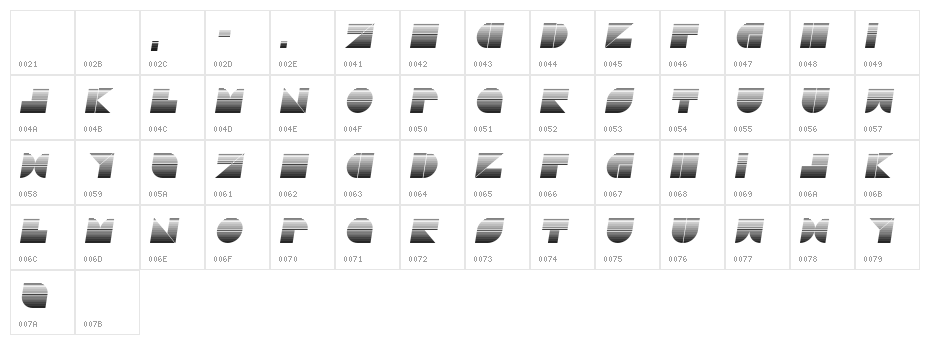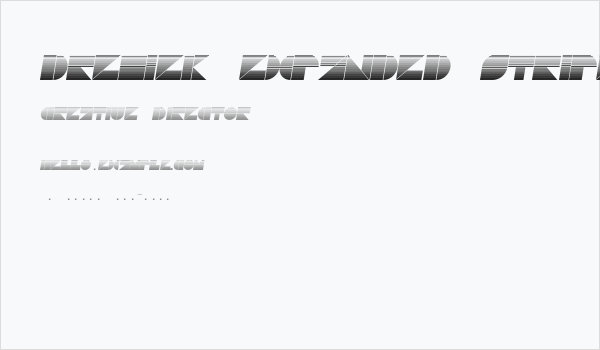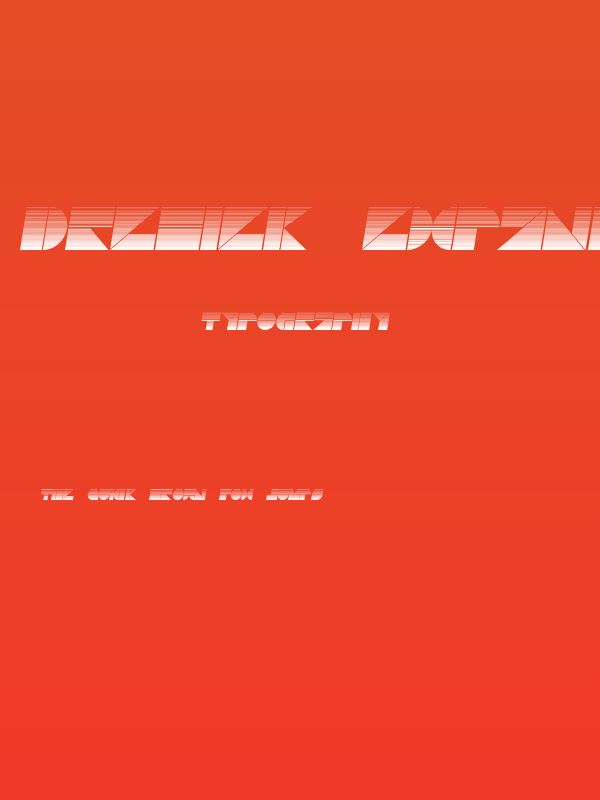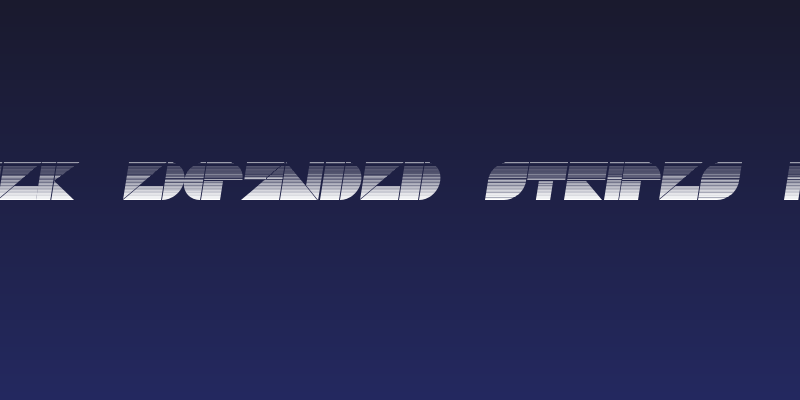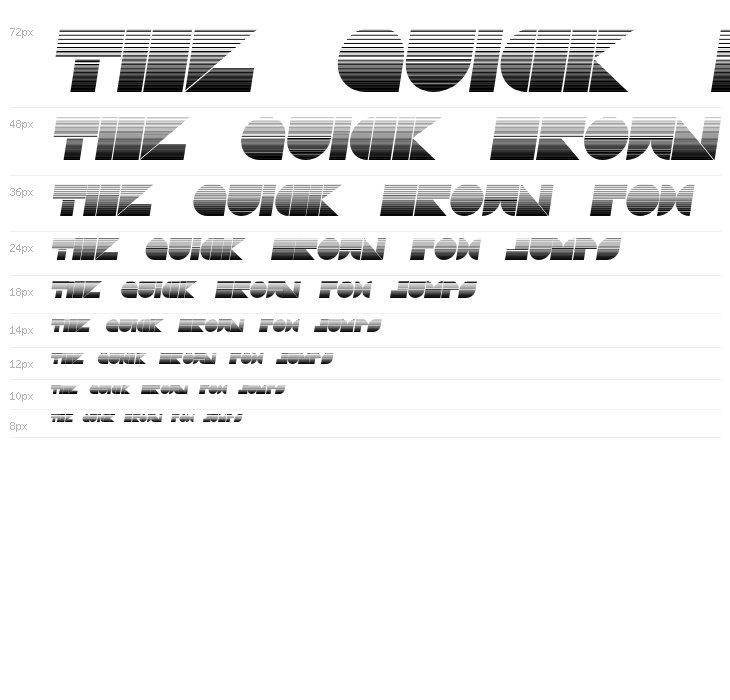
Drebiek Expanded Stripes Italic Font
Drebiek Expanded Stripes Italic Description
This font features a bold, dynamic design characterized by horizontal stripes that create a sense of movement and energy. The letters are expanded and italicized, giving them a futuristic and modern appearance. The use of stripes adds a unique texture, making the font stand out in any design. The uppercase letters are particularly striking, with a strong geometric structure that is both eye-catching and stylish. The lowercase letters maintain the same striped pattern, ensuring consistency across the typeface. The numerals and special characters are designed with the same attention to detail, making this font versatile for various applications.
| Proposed Projects | Ideal for branding, posters, futuristic designs, and any project requiring a bold, modern aesthetic. |